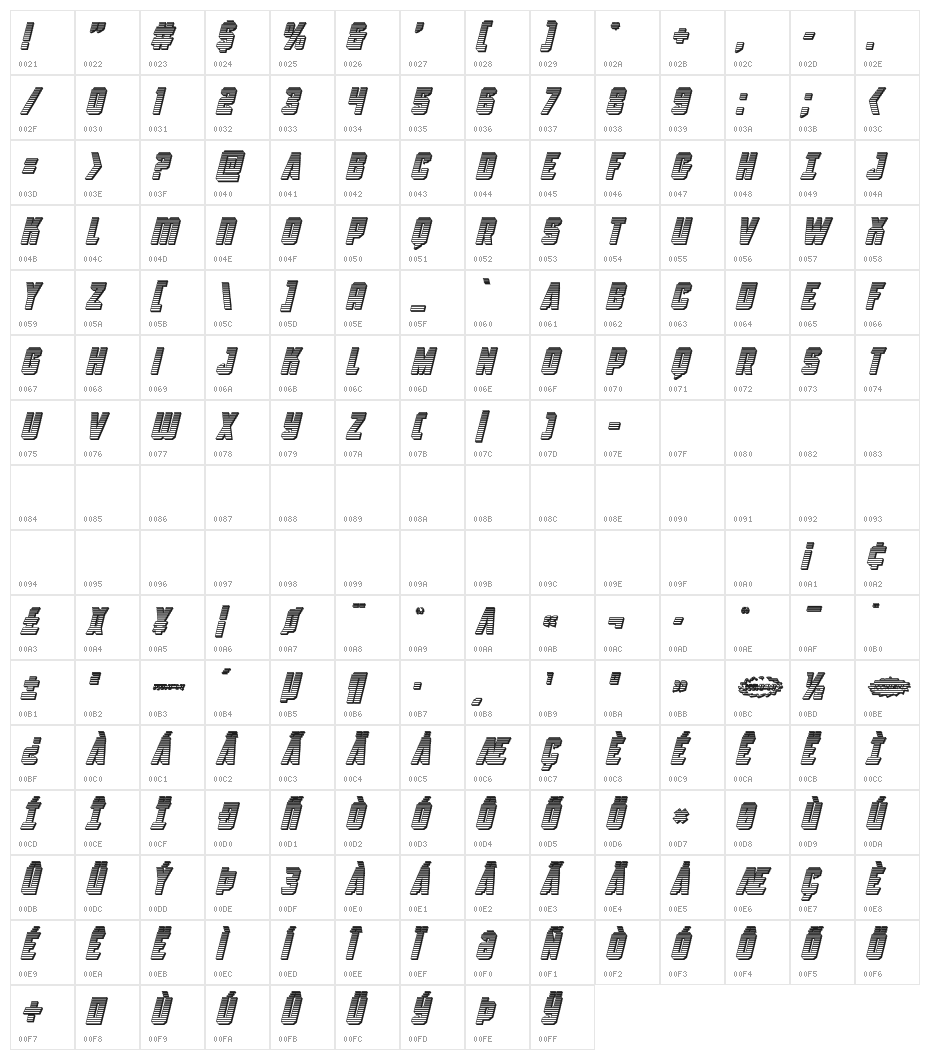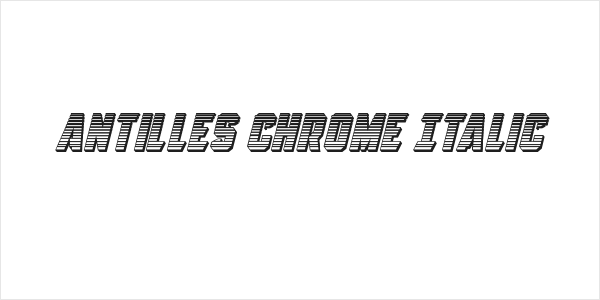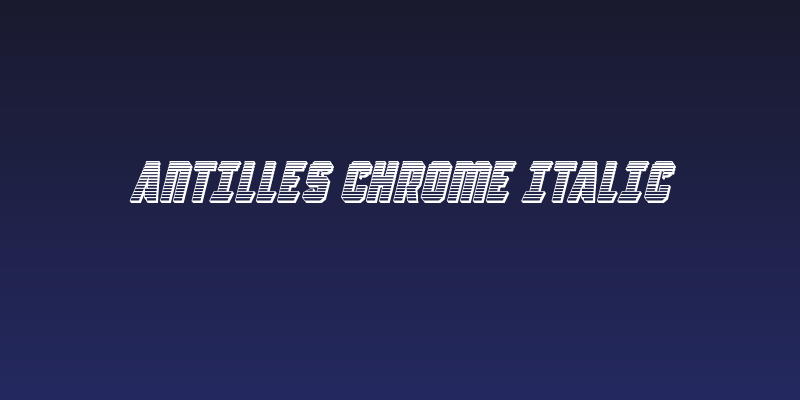
Antilles Chrome Italic Font
Antilles Chrome Italic Description
This font features a bold, three-dimensional design with a chrome-like appearance. The letters are italicized, giving them a dynamic and forward-leaning stance. Each character is composed of multiple horizontal lines that create a layered effect, enhancing the 3D illusion. The font is highly decorative, making it ideal for attention-grabbing headlines or logos. The uppercase and lowercase letters maintain a consistent style, with numerals and special characters following the same design principles. The overall look is modern and futuristic, suitable for projects that require a strong visual impact.
| Overall Style | Modern, Futuristic |
| Proposed Projects | Ideal for futuristic branding, sci-fi themed posters, video game titles, and dynamic logos. |